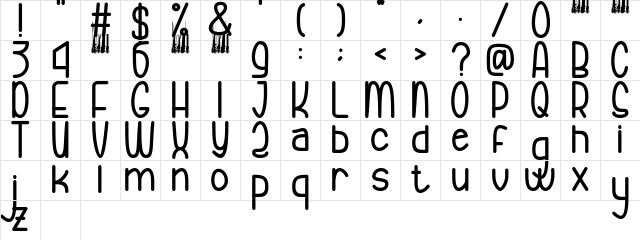
Fabiano Armando Medium Regular Free Font
Fabiano Armando Medium Regular
Design Context for Fabiano Armando Medium
Fabiano Armando Medium is a composed and adaptable typeface that performs quietly and consistently across a wide range of design contexts.
Pro Tip: Use Fabiano Armando Medium in both headline and body roles to test its range before committing to a single application.